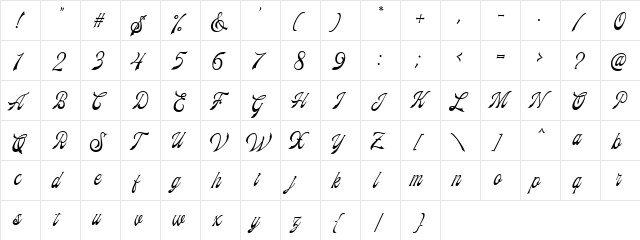
Frankest Script DEMO Regular
Design Context for Frankest Script DEMO Typeface
Frankest Script DEMO brings a calligraphic fluidity to the page — its connecting strokes and expressive curves give it an unmistakably human quality.
Font Pairing: Combine Frankest Script DEMO with a simple geometric sans for maximum contrast — the tension between flowing curves and clean structure is a classic typographic pairing.
Pro Tip: Use Frankest Script DEMO for short runs of text — names, titles, or taglines. Extended body copy in script faces tires the eye quickly.